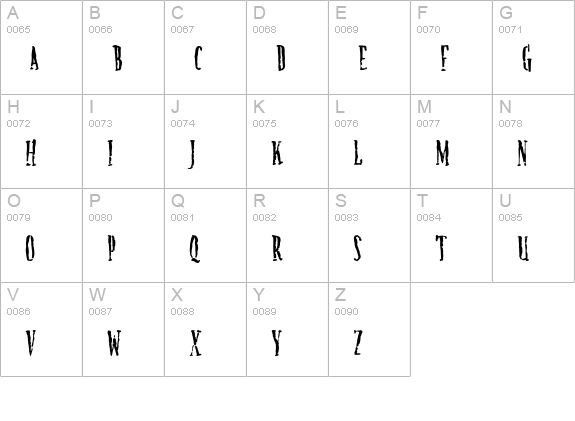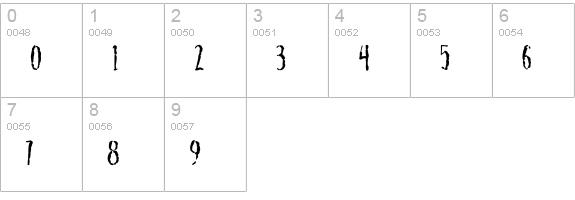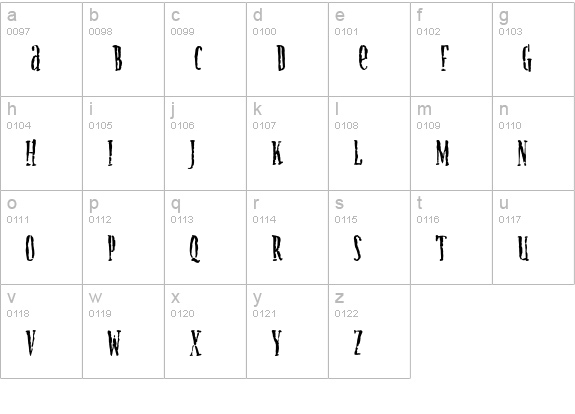
Creature Font Details
The Creature font is a whimsical and unique typeface that exudes a playful and mysterious charm. With its quirky design and eye-catching details, this font is perfect for adding a touch of whimsy to any project. Each letter is meticulously crafted to showcase a creature-like quality, making it perfect for fantasy-themed designs, children's books, and more. The best part? The Creature font is available for free download at FontsMarket.com! So unleash your creativity and bring your projects to life with this enchanting and captivating font. Let your imagination run wild with the Creature font and watch as your designs come to life in a whole new way.